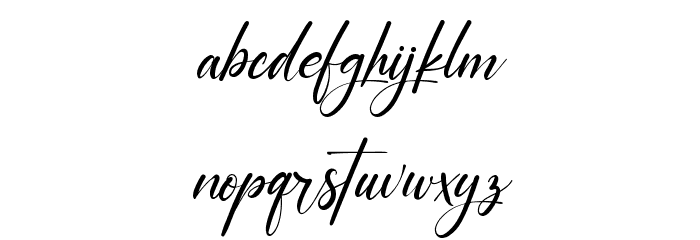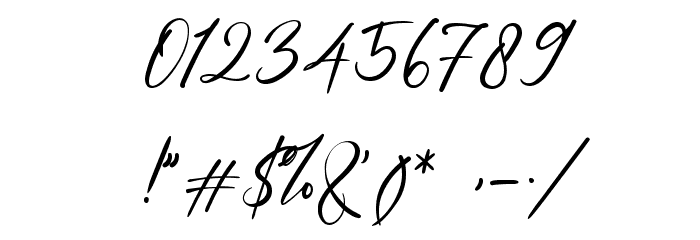
Carrie Gallerie Font
This elegant script font features a flowing, cursive style with smooth, sweeping curves and a refined, sophisticated appearance. The uppercase letters are characterized by their tall, slender forms and graceful loops, while the lowercase letters maintain a consistent fluidity and connectedness. The numerals and special characters complement the overall aesthetic with their stylish and harmonious design. This font exudes a sense of elegance and charm, making it ideal for projects that require a touch of class and sophistication.
A refined and elegant script font with flowing, cursive letters.
- Proposed Projects: Ideal for wedding invitations, elegant branding, greeting cards, and upscale packaging.
- Overall Style: Elegant, Sophisticated
- Use Case: Logos, Invitations, Branding